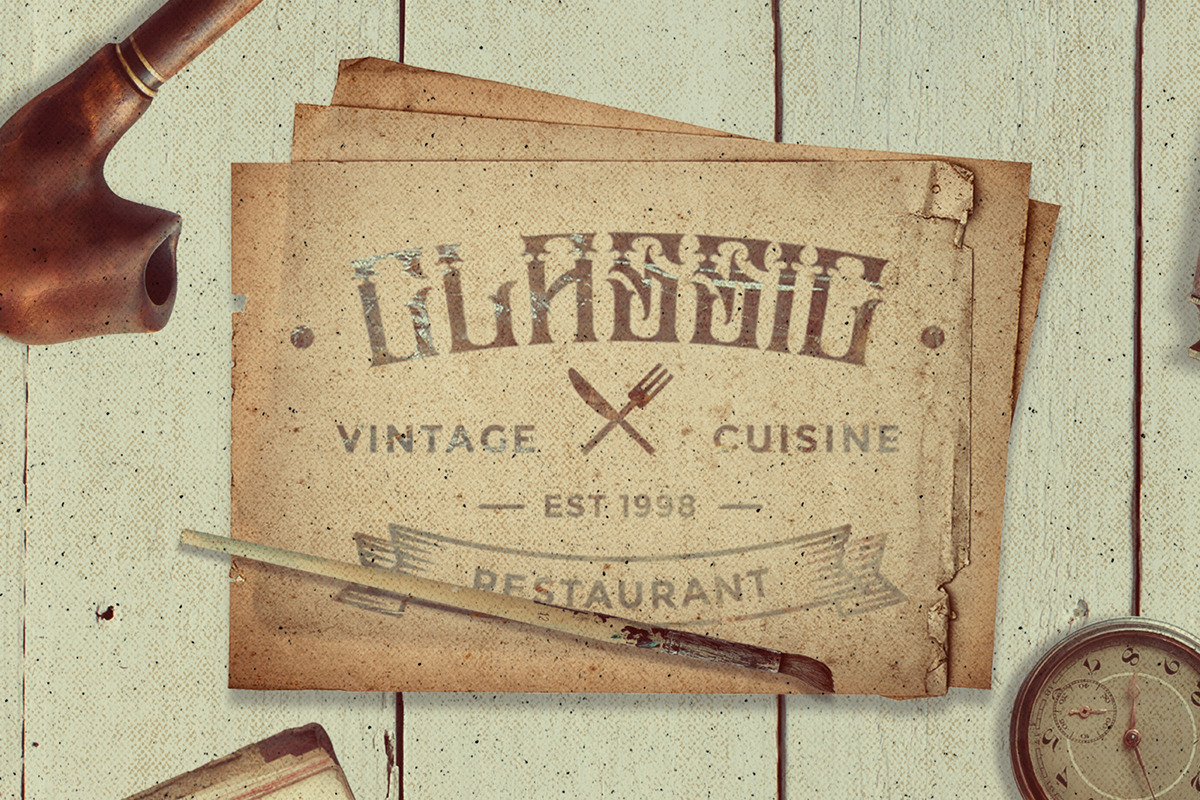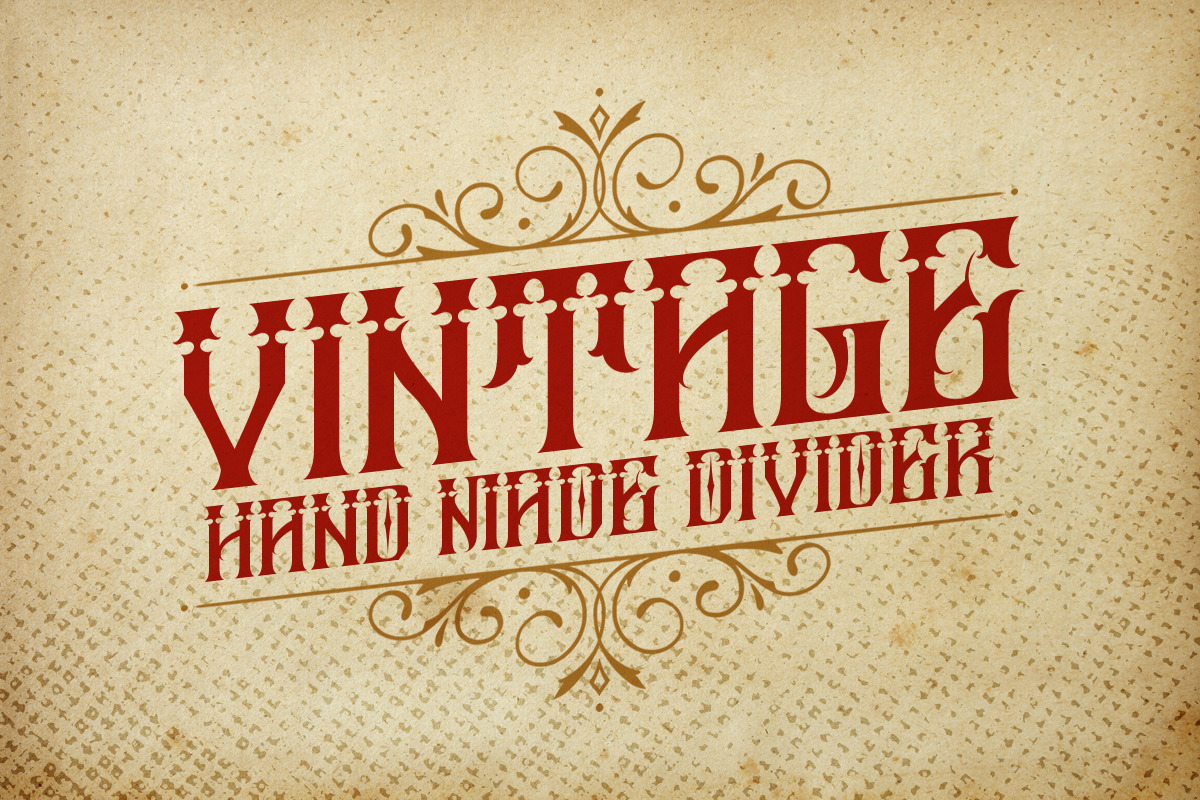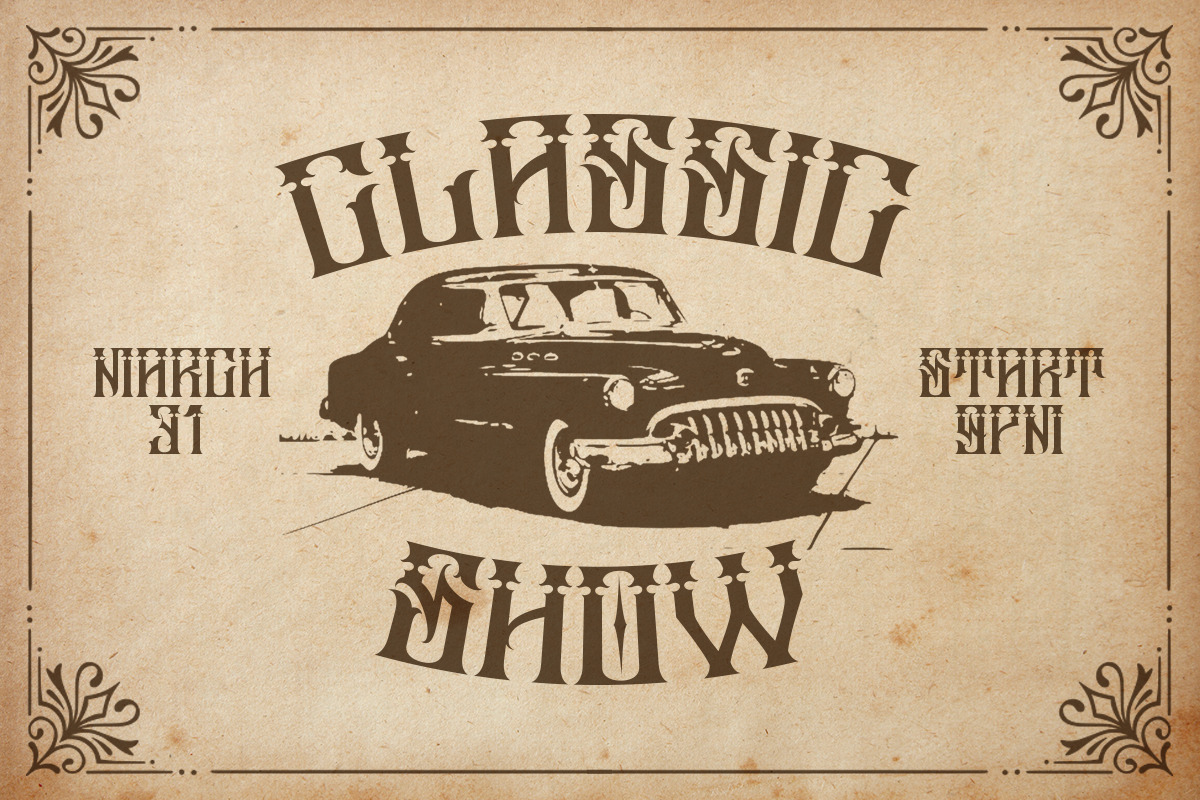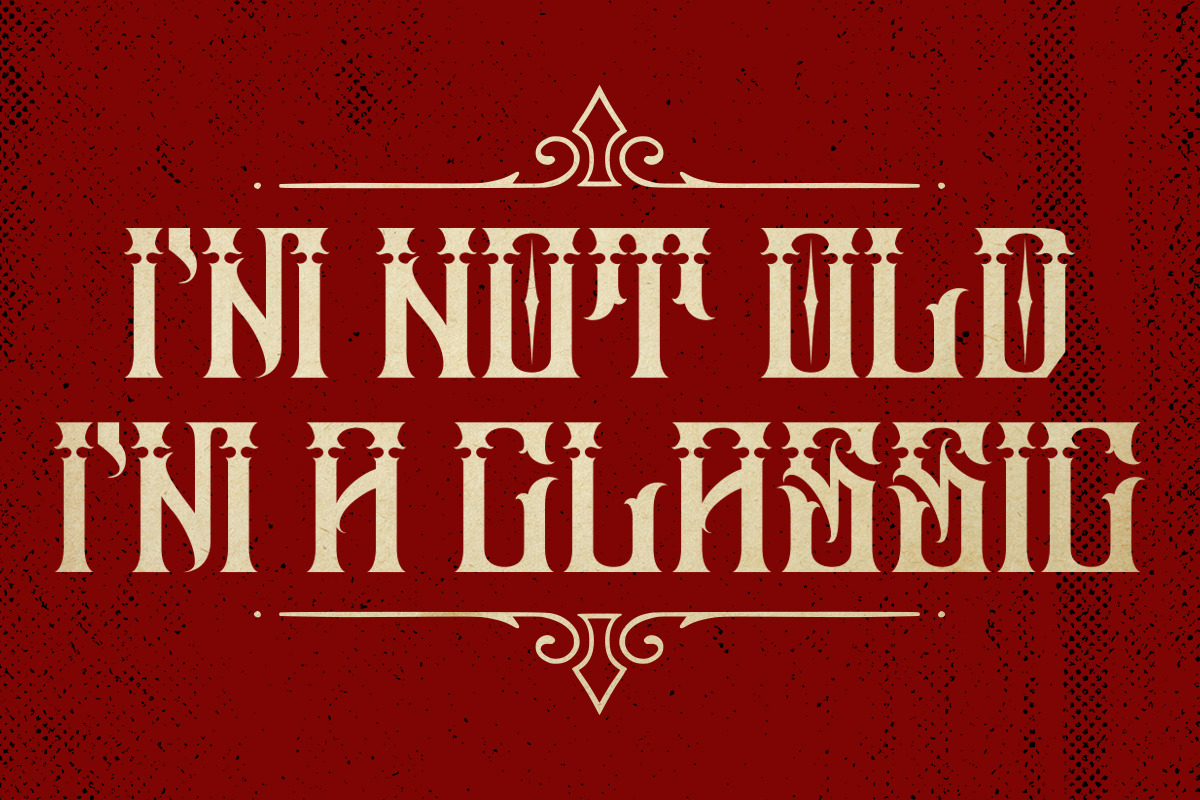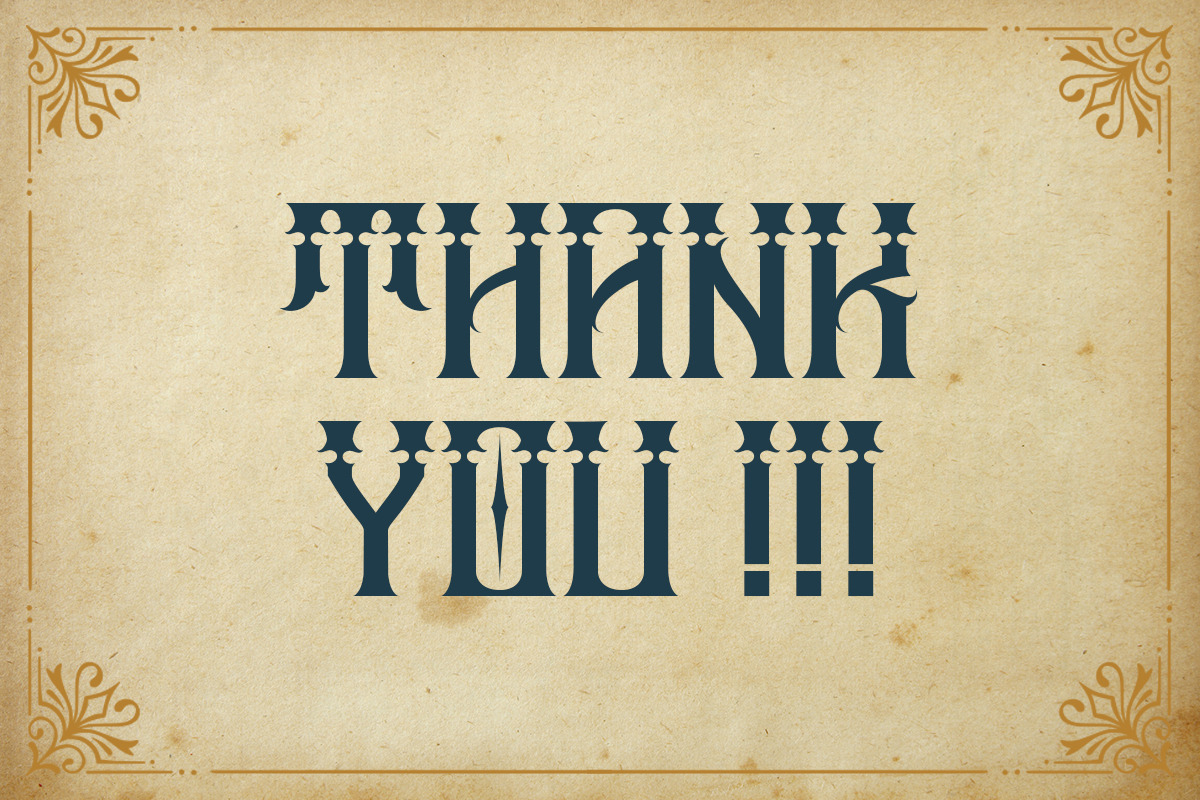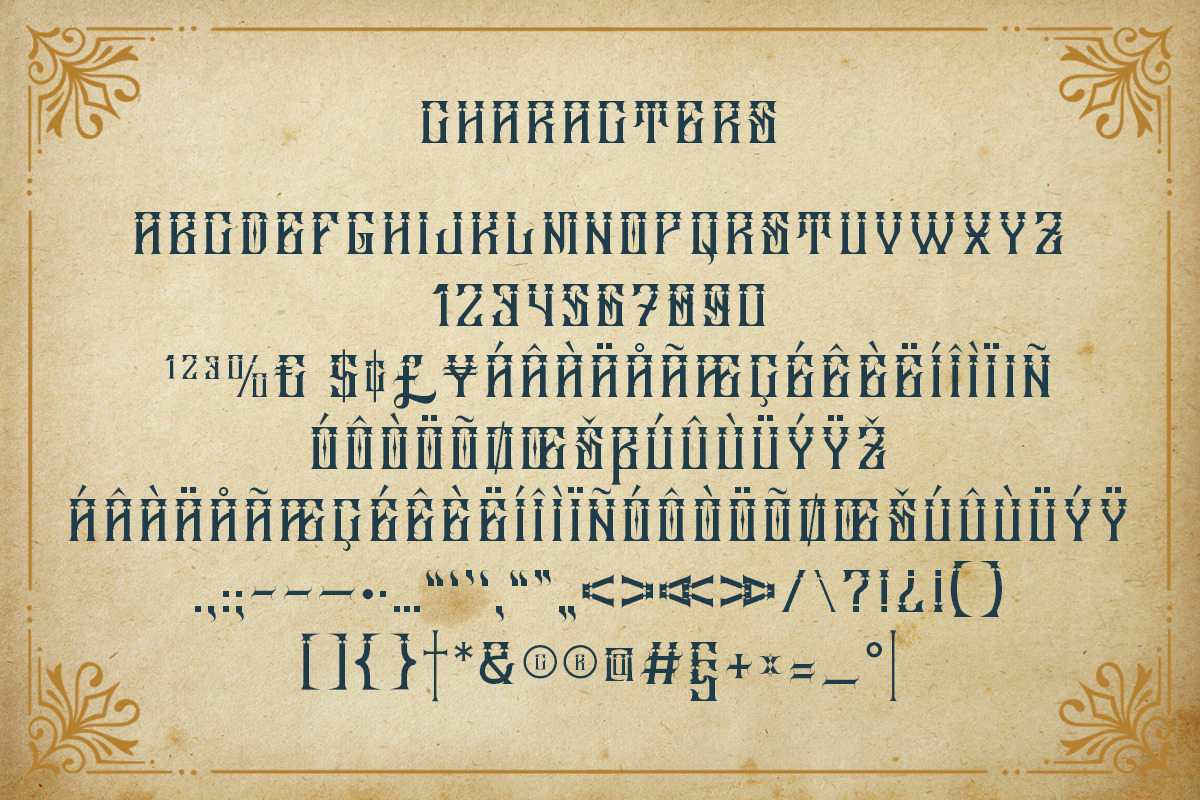
Mexicanos
Introducing of our new product the name Mexicanos font. Mexicanos is vintage display font perfect for tattoo design, logo studio tattoo, shirt design, poster, branding, etc.
FEATURES : Uppercase Number Punctuation Multilingual